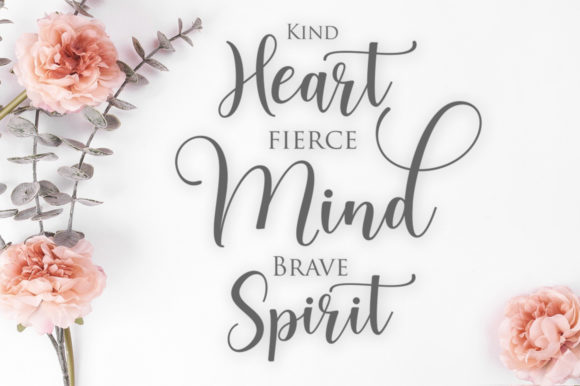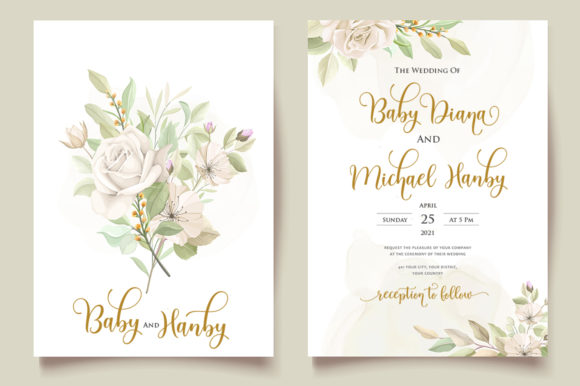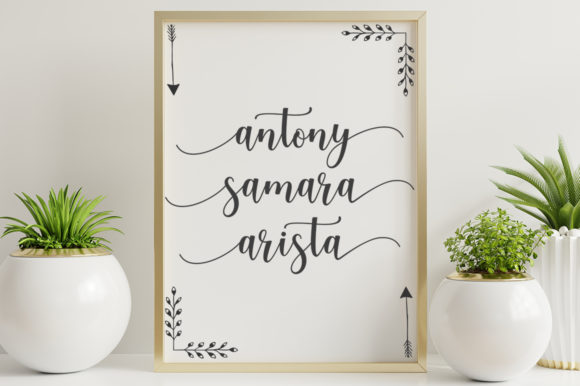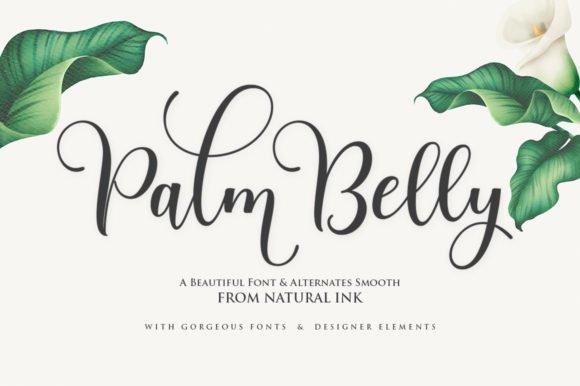
Introduction to Palm Belly Font
Palm Belly Script Font is modern calligraphy with beautiful and casual swashes.
This font has an awesome selection of special characters and is PUA encoded, which means you can access all of the glyphs with ease .
Why Choose Palm Belly Font?